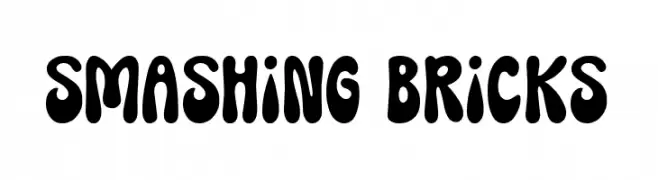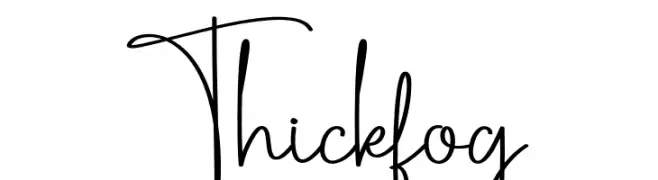
A modern, italic font with bold, parallel lines and high contrast strokes.
A modern, layered font with overlapping lines creating a geometric and artistic style.
A bold, geometric font with a hollow interior and a modern, digital look.
A playful, rounded font with a bold and bubbly style.
A bold, playful font with geometric shapes and a cut-out effect.
A playful and decorative font with whimsical curls and swirls.
A graceful script font with fluid, cursive strokes and elegant connections.
A bold serif font with strong, thick strokes and a classic aesthetic.
A playful, handwritten-style font with uneven, whimsical characters.
A bold, energetic brush-style font with dynamic and expressive characters.
Hand-drawn, calligraphic underline decorations.
A decorative font with elegant, cursive uppercase and bold, rounded lowercase characters.
A bold, triple-line font with a playful, outlined design.
A dynamic and flowing script font with elegant, cursive letterforms.
A bold, playful handwritten font with rounded, casual letterforms.
A dynamic, expressive handwritten font with fluid strokes and playful character.
A bold, playful font with irregular, chunky letterforms and a hand-crafted appearance.
A whimsical, decorative font with playful embellishments and a lively style.
A playful, decorative font with bold, geometric shapes and intricate patterns.
A playful, casual script font with smooth, flowing lines and rounded edges.
A playful, bold font with rounded edges and a bubbly appearance.
A bold, playful handwritten font with an italic slant.
A playful, hand-drawn font with rounded edges and a casual style.
An elegant, flowing script font with a handwritten appearance.
A bold, expressive brush-style font with dynamic, hand-painted characteristics.
A playful, casual handwritten font with dynamic strokes and a friendly appearance.
A bold, dynamic script font with flowing, interconnected strokes.
A bold, playful font with rounded, whimsical characters.
A playful handwritten font with smooth, fluid strokes and a casual vibe.
A bold, handwritten font with expressive, dynamic strokes.
A modern, rounded sans-serif font with a bold weight and clean design.
A modern, rounded sans-serif font with a clean and approachable design.
A modern, rounded font with a slight italic slant and uniform stroke width.
A modern, light, and geometric sans-serif font with rounded edges.
A playful, bold, and hand-drawn font with rounded edges.